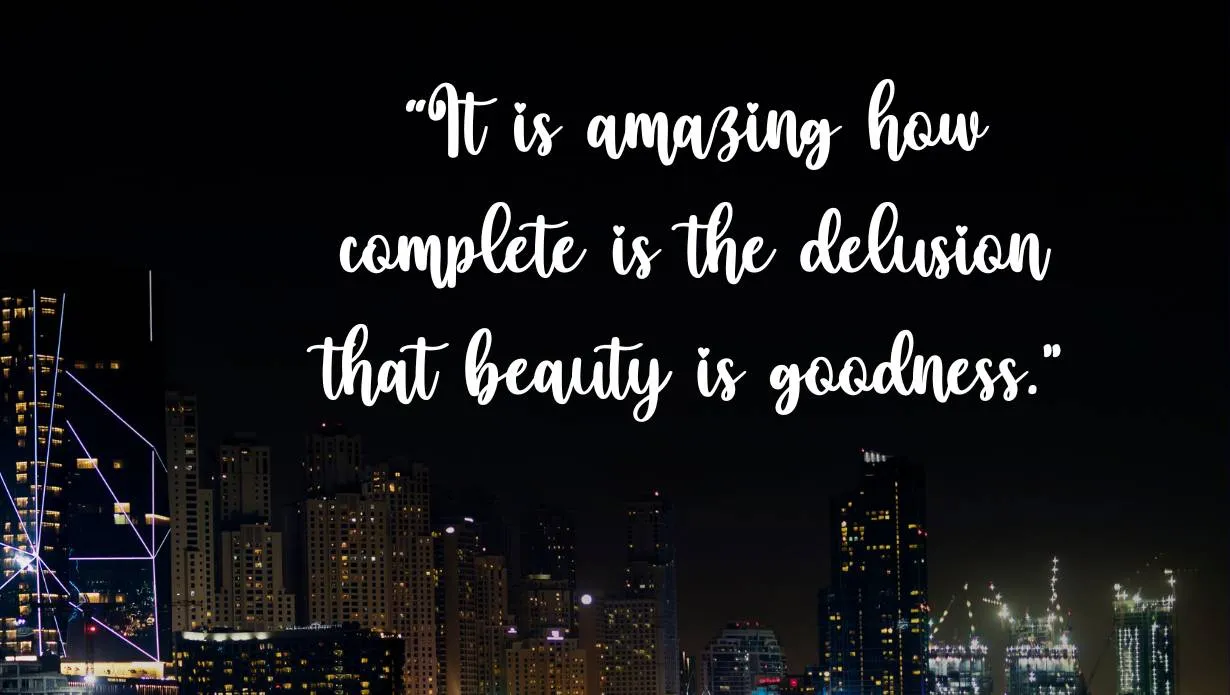
My Loves Font was invented by a well-known typographer Dian Hadi and it was announced by Bearytype Foundry. You can utilize this typeface for headlines, subheadings, and titles. This typeface falls under the script category.
The bold and decorative characters of this font can be paired with egyptian font so you can astound the viewers.